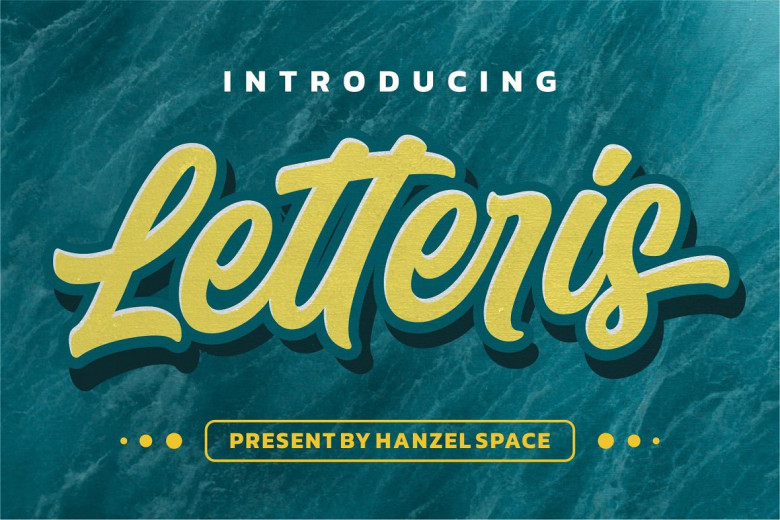
Letteris Font
Letteris is our latest product offering and takes inspiration from Bold hand lettering. Ideal for use as branding logotype, headline flyer, book cover packaging design and posters as well as posters, t-shirt designs, Letteris offers various alternative characters and opentype features including stylistic alternate, set, ligature and swash to mix-and-match for design purposes.
Letteris Bold Script Font